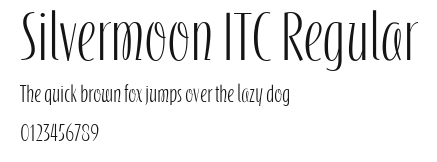
Silvermoon ITC Regular.ttf is a modern, elegant sans-serif font designed for ultimate readability and visual harmony. Perfect for branding, headlines, web design, and print materials.